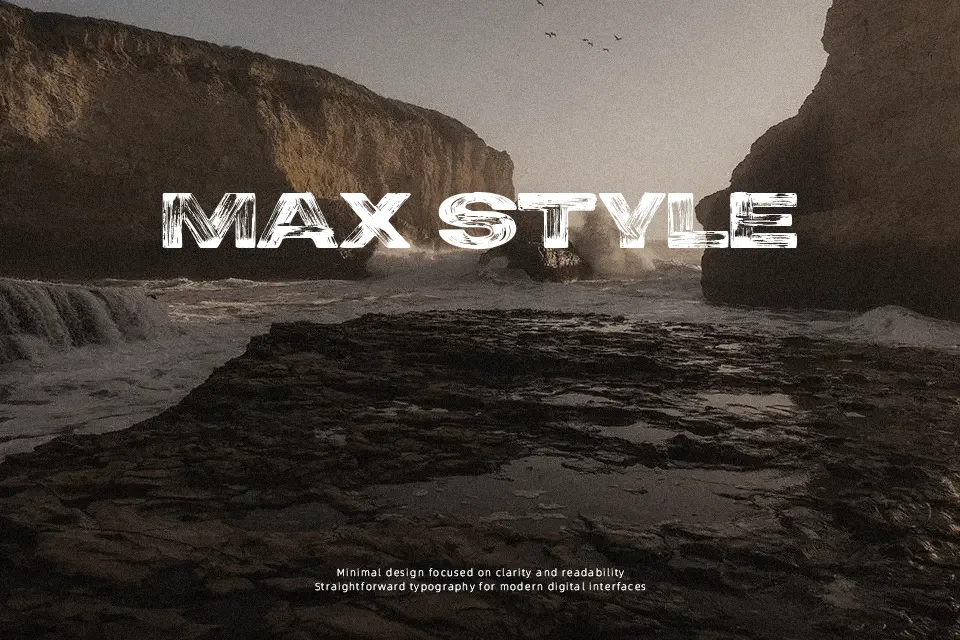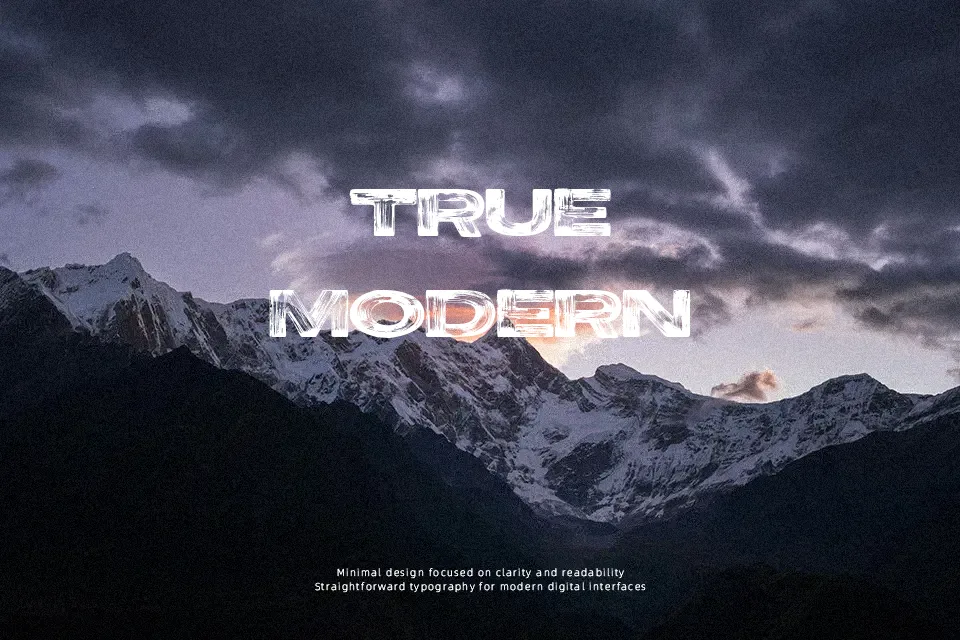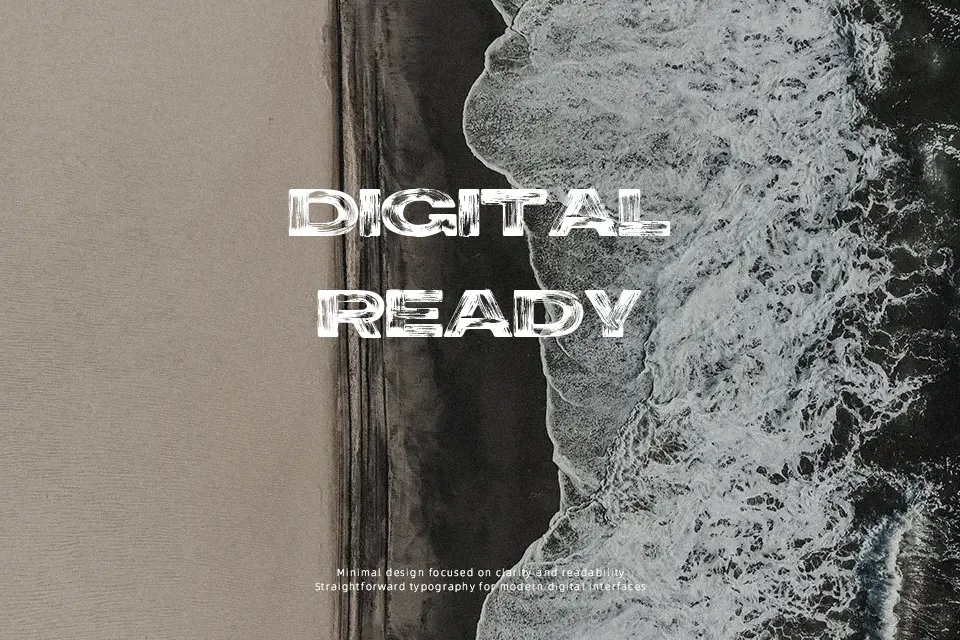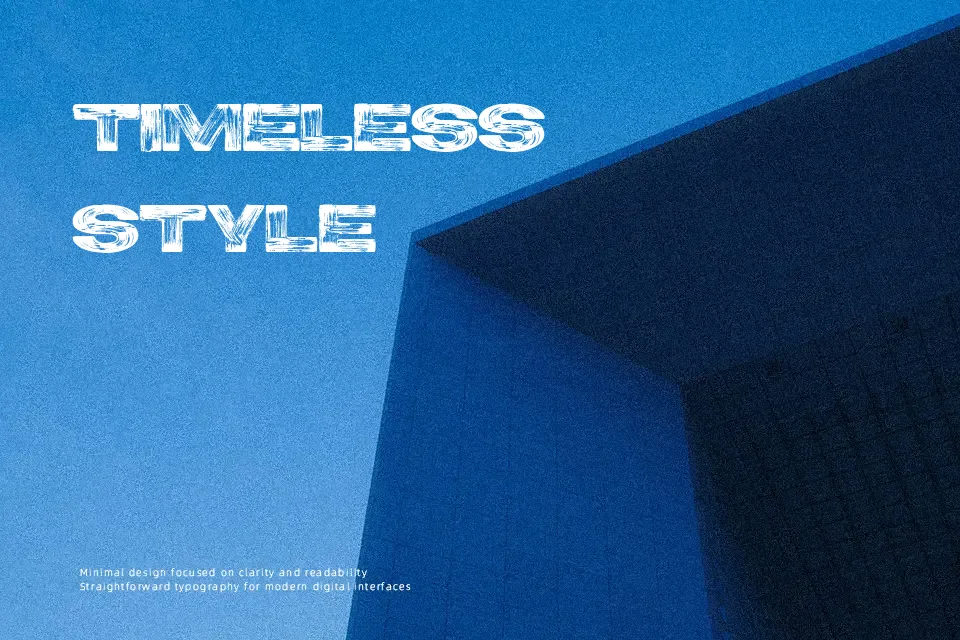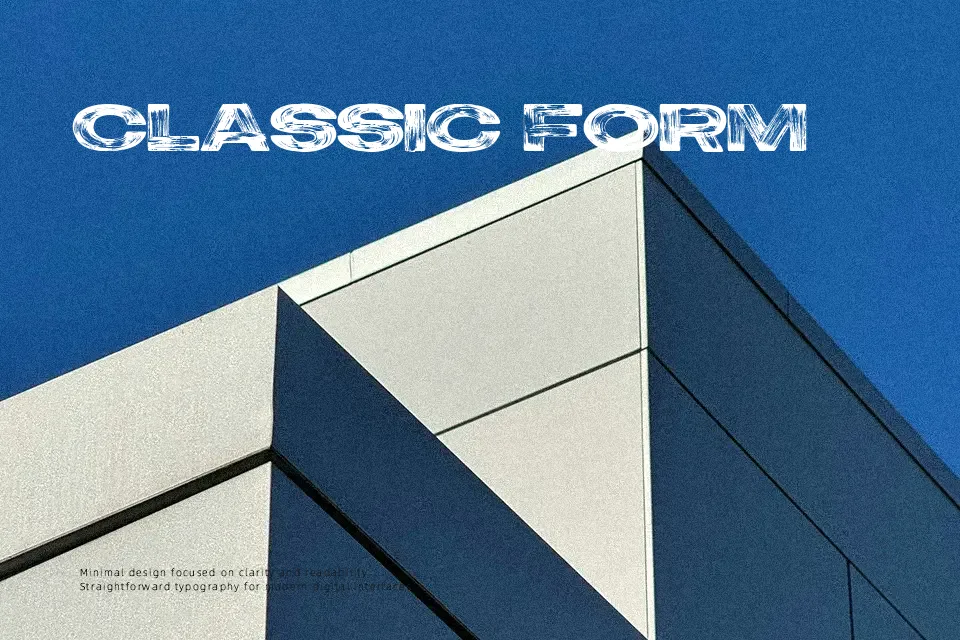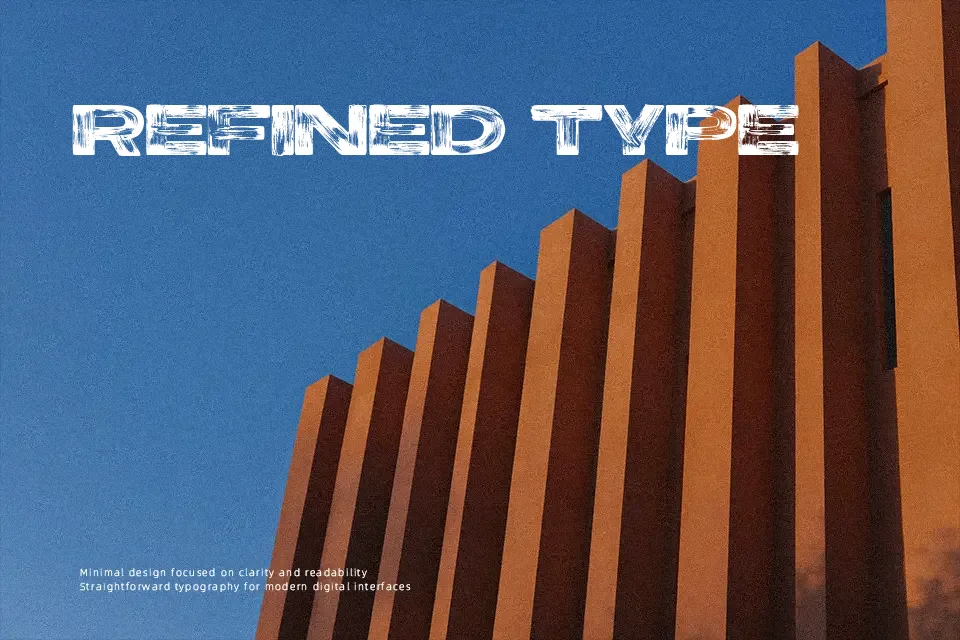
Ocean Grade Font
Ocean Grade uses broad brush-shaped letterforms with rough, broken contours that create a tactile display texture. The strokes appear heavy and mostly uniform in weight, while the irregular edges keep the forms from feeling mechanically clean. Spacing is balanced enough for short words and stacked compositions, and the proportions hold up well in large titles. The typeface is most effective where its distressed surface can remain visible, such as graphics, labels, or promotional artwork. Its bold forms improve recognition in headlines, but the textured details become less clear at smaller sizes and reduce comfort in extended reading.
Best For: poster headlines,apparel graphics,product labels,social media artwork
Perfect for advertising, headline, and packaging, with a bold and brush style.